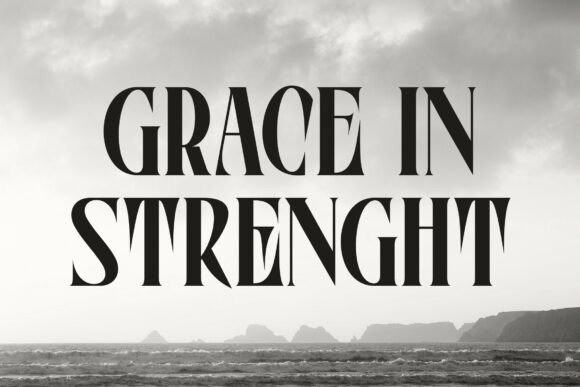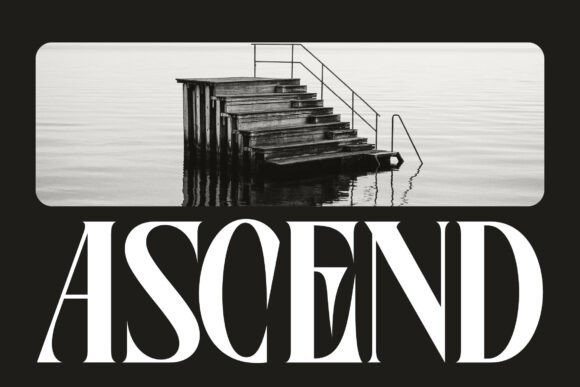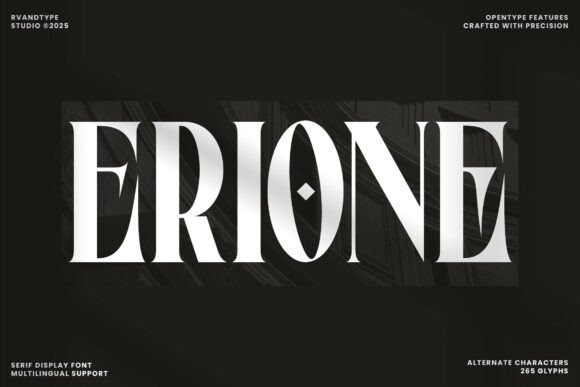
Erione Font
Erione Font on a design journey into the realm of Erione, a digitally-advanced serif font crafted to make a lasting impact to your audience. Its bold and assertive profile embodies an air of authority that confers a high-end flair to your designs. Anchored in sturdy letter structures, crisp detailing, and clearly distinguished stroke contrasts, Erione undeniably compels attention, ensuring your designs carve a unique place of their own. With the capability to bolster logos, branding narratives, headlines, posters, editorial, and packaging designs, it also performs exceptionally well on digital media, adding a strong aesthetic tone to your social media posts. Erione comes packed with a surplus of features to augment its usage and value – it flaunts a robust serif character, alternate character set, bilingual support, and a comprehensive set of uppercase & lowercase letters, figures, and symbols. This flexible and dynamic font serves as an optimal selection for fashioning a memorable logo and brand persona, forging arresting headlines and posters, curating engaging packaging, and enriching your fashion and beauty marketing. Moreover, it seamlessly aligns with the creation of visually gripping social media content that captivates and retains attention. Grace your design future with confidence with Erione.